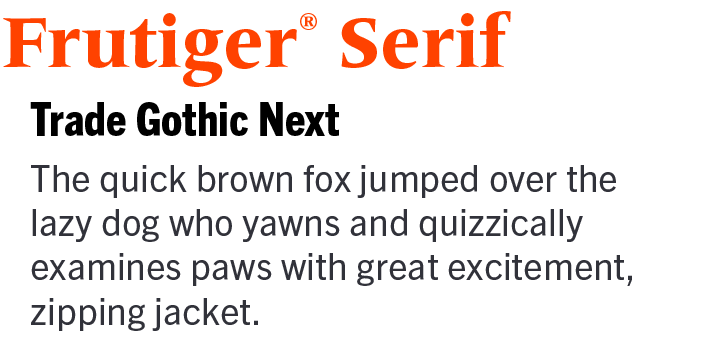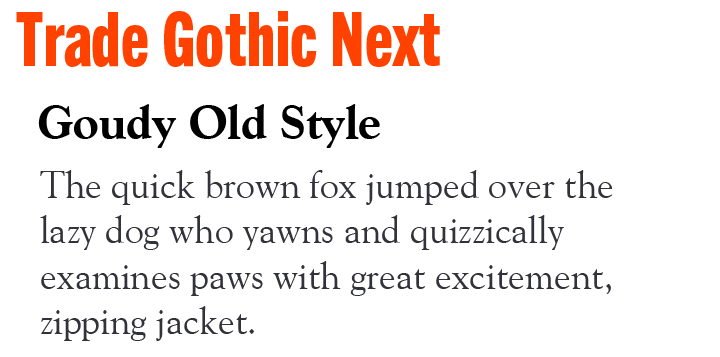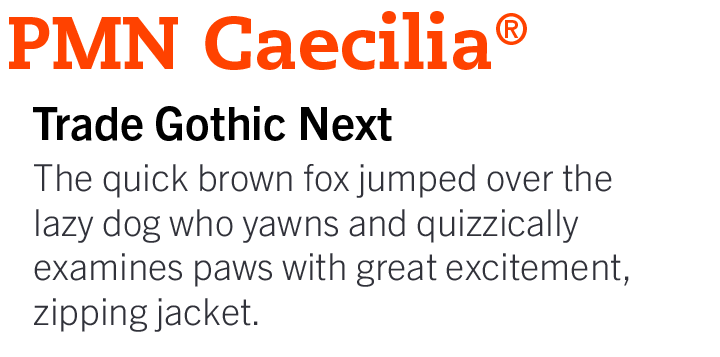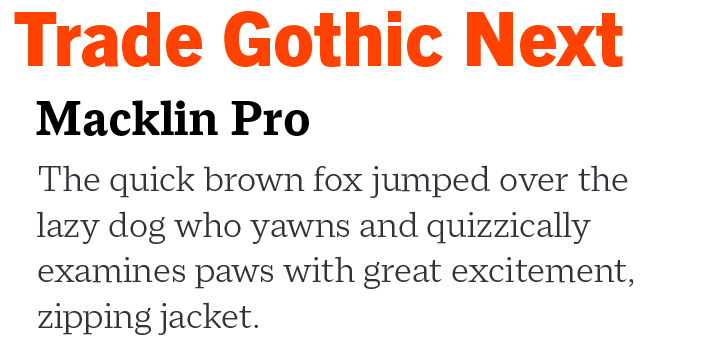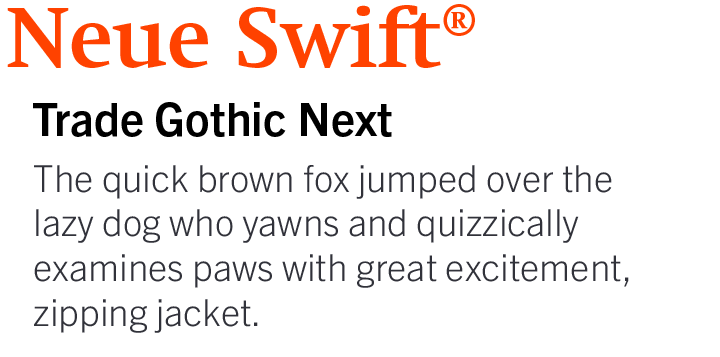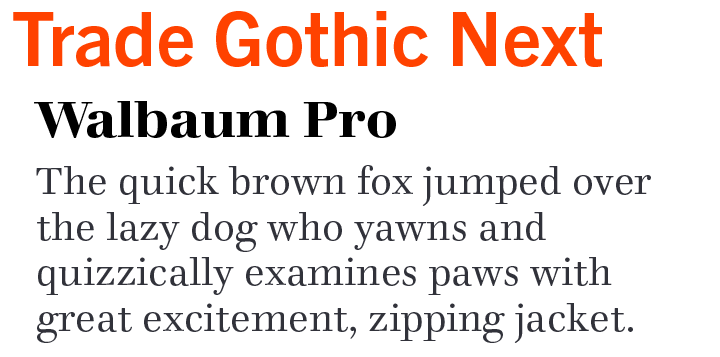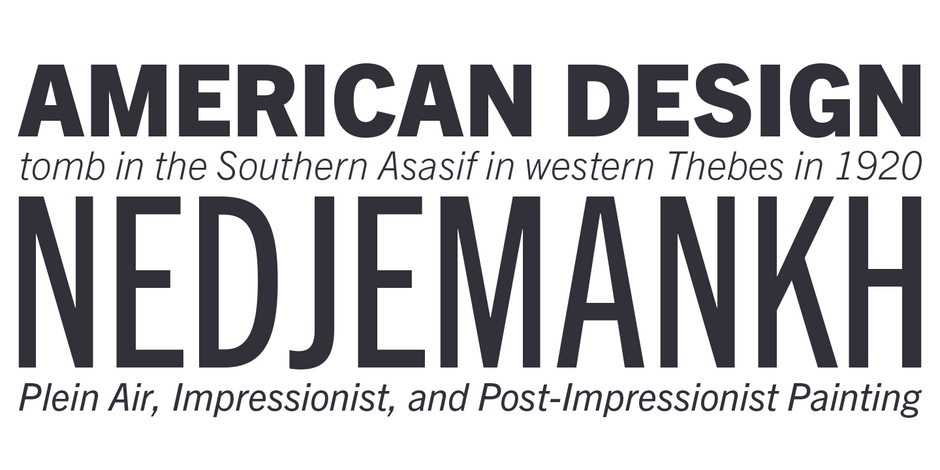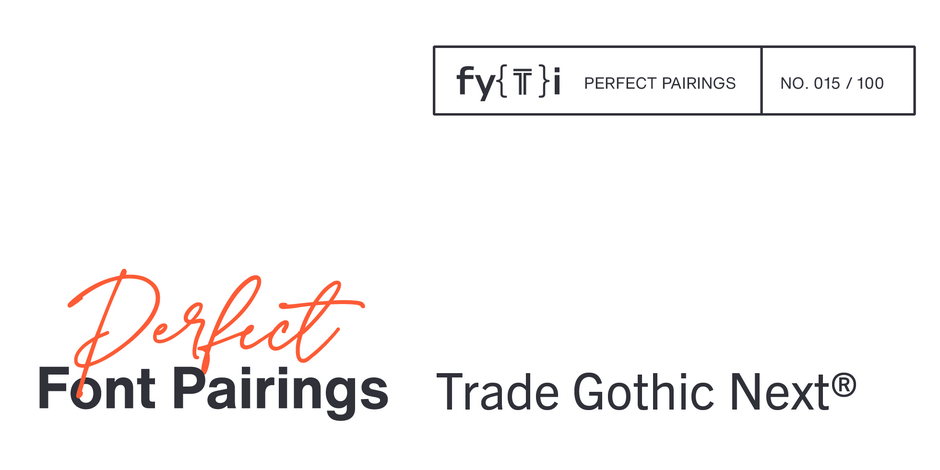
Trade Gothic Next® Perfect Font Pairings
FOUNDRY: Linotype
DESIGNER: Jackson Burke, Akira Kobayashi, and Tom Grace
CLASSIFICATION: Sans Serif Grotesque
ABOUT THE FAMILY
- The first Trade Gothic typefaces were released in the late 1940s, by Jackson Burke. They were condensed sans popular for “trade” work, and were just named “Gothic” with numeric suffixes. Later, regular-proportioned versions emerged, leading to the unified name “Trade Gothic” for the family.
- Akira Kobayashi, Monotype’s Creative Type Director, with the aid of Tom Grace, updated the original Trade Gothic designs, in 2008. While preserving the original’s distinctive character, their revision is a significantly more versatile typographic tool.
- The extended Trade Gothic Next family also has Soft Rounded and Rust versions.
WHAT TO LOOK FOR IN FONTS THAT PAIR WELL WITH TRADE GOTHIC NEXT
For best results, pair Trade Gothic Next with typefaces that have the following characteristics:
- Serif typefaces – especially those with high levels of legibility Slab Serif or Clarendon typefaces featuring humanistic nuances.
- Old Style typefaces such as Palatino® Nova or Frutiger® Serif.
- Avoid sans serif fonts; however, some like Frutiger® Next or Palatino® Sans can pair well with Trade Gothic Next– if the weights of the two typefaces differ significantly.
TRADE GOTHIC NEXT PAIRING WITH DISPLAY FONTS
TRADE GOTHIC NEXT PAIRING WITH TEXT FONTS